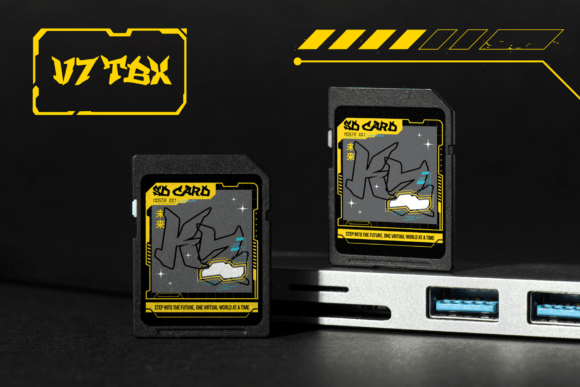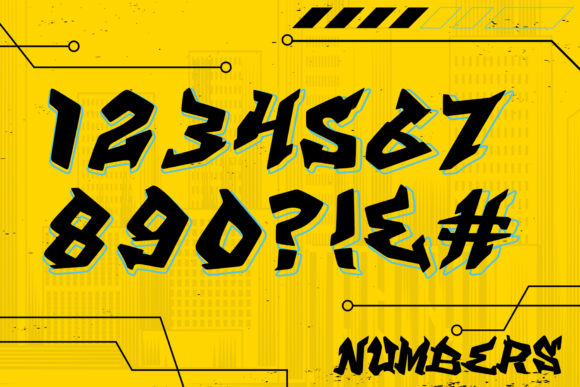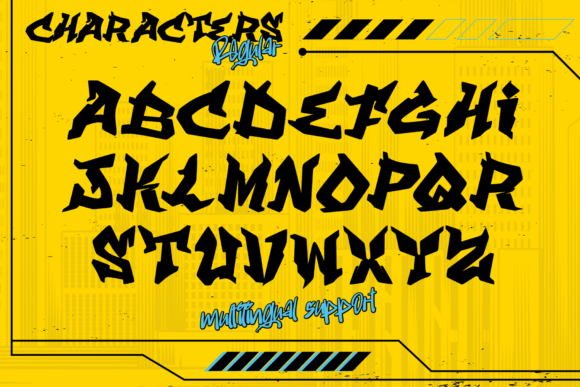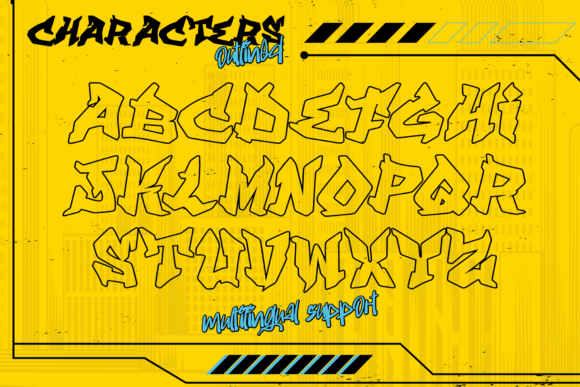
Introducing Aero Vault Font: The Ultimate Typeface for Cyberpunk Designs
In the realm of digital design, typography plays a crucial role in conveying the essence of a brand or project. For creators seeking to infuse their work with a sense of movement, rebellion, and raw energy, Aero Vault Font emerges as the perfect solution. This definitive typeface of the cyberpunk era offers an exquisite fusion of modern graffiti and futuristic precision, making it an ideal choice for designers who want to push the boundaries of urban design.
The Essence of Aero Vault
Imbued with the pulsating vibrancy of a digital cityscape and intertwined with the rawness of street culture, Aero Vault Font illuminates the essence of cutting-edge urban design. Every stroke and curve in this nimble font conjures up visions of high-tech urban aesthetics found in sci-fi films, data stream graffiti, and digital interfaces. With Aero Vault, every character pulsates with kinetic intensity, embodying sophistication and balance in one captivating flow.
Aero Vault Font boasts a bold graffiti underpinning, making it particularly suited for projects that demand individuality and intensity. The font’s design is characterized by:
- Kinetic Intensity: Every character is designed to convey a sense of movement and energy, perfect for capturing the attention of your audience.
- Sophistication and Balance: Despite its bold nature, Aero Vault maintains a refined appeal, ensuring that your designs exude a sense of sophistication and poise.
- Modern Graffiti and Futuristic Precision: The font seamlessly blends modern graffiti with futuristic precision, creating a unique visual identity.
Ideal Applications
Aero Vault Font is versatile and can be applied to various design projects, including:
- Branding and Logo Design: Create a lasting impression with a bold and memorable logo that embodies the essence of your brand.
- Poster and Flyer Design: Add an edgy touch to your posters and flyers, perfect for promoting events, products, or services.
- Digital Interfaces and UI Design: Enhance your digital products with a font that resonates with the cyberpunk aesthetic.
Why Choose Aero Vault?
By choosing Aero Vault Font, designers and crafters can:
- Stand Out in a Crowded Market: With its unique blend of modern graffiti and futuristic precision, Aero Vault helps you differentiate your designs from the competition.
- Convey a Sense of Rebellion and Individuality: Perfect for projects that require a bold and daring approach, Aero Vault empowers you to push boundaries.
- Elevate Your Brand’s Visual Identity: Aero Vault’s refined appeal ensures that your designs exude a sense of sophistication, making it ideal for modern branding elements.
Aero Vault Font is a game-changer for designers and crafters seeking to infuse their work with a sense of movement, rebellion, and raw energy. With its exquisite fusion of modern graffiti and futuristic precision, this definitive typeface of the cyberpunk era is poised to revolutionize the world of urban design. Whether you’re working on branding, posters, digital interfaces, or any other design project, Aero Vault Font is the perfect choice for those who dare to be different.